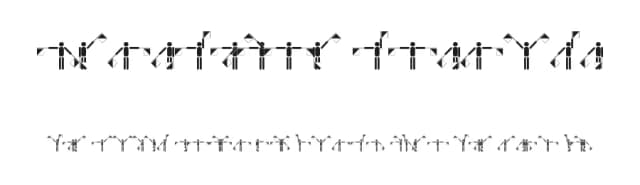
About Masjid Al Imran Font
Masjid Al Imran is a dingbat font designed by Imran Nasution. It includes 236 glyphs, a regular weight, TTF (TrueType) format, and 209 languages. Masjid Al Imran is free to download; check the license details on this page before commercial use. Dingbat fonts like Masjid Al Imran work best for icons, ornaments, bullet points, and decorative accents.
Masjid Al Imran Font is a versatile dingbats font that works for both headings and body text. Pair it with a contrasting sans-serif or serif font to add visual interest and a clear distinction between titles and body copy.